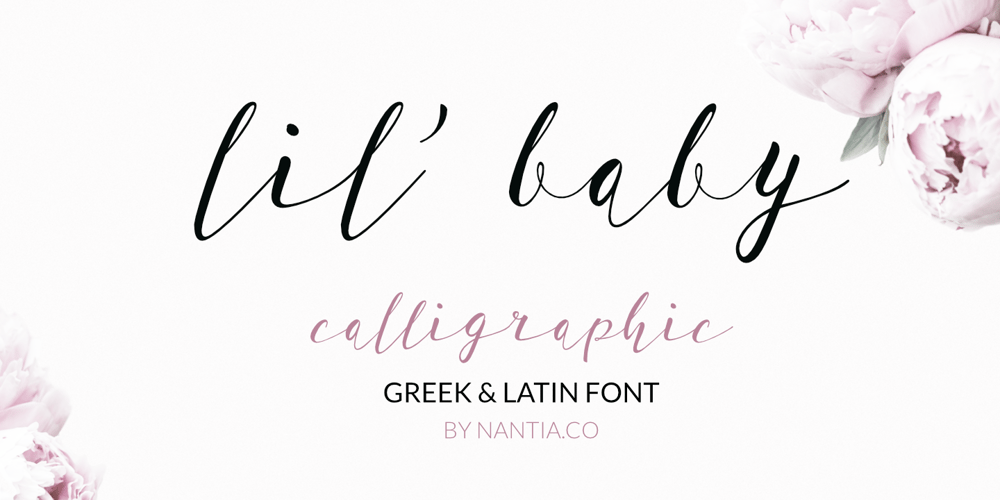
Lil Baby Font Family was designed by Konstantina Louka and published by Nantia.co. Lil Baby contains 1 styles and family package options. Lil’Baby Script Font is a romantic, modern calligraphy typeface, which supports Extended Latin and Greek characters. This font does not only contain a complete set of lower and uppercase letters, punctuation, numbers, but also a set of ligatures. Equally important is the fact that the font has diacritics for multilingual support. Of course, with this typeface, you have access to a complete Greek set of characters, with diacritics and Greek ligatures. Lil’Baby Script is a high-quality calligraphy font that can infuse any project with romantic vibes.Lil’ Baby Script is the perfect wedding font if you want to achieve a dreamy style on your wedding invitation. For a soft, elegant style, you can pair the font with a pastel color palette and creamy papers.Of course, this modern script font is perfect for your graphic design needs like social media quotes, blog headers, posters, stationery, and why not branding, packaging, and logotypes. In addition, this calligraphy font is ideal for the fashion and apparel industry, if you want to achieve a classic chic, yet modern style.